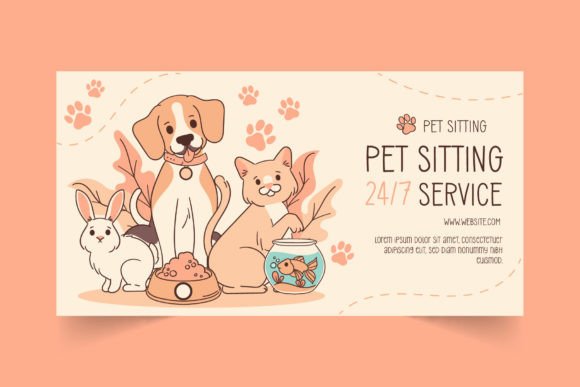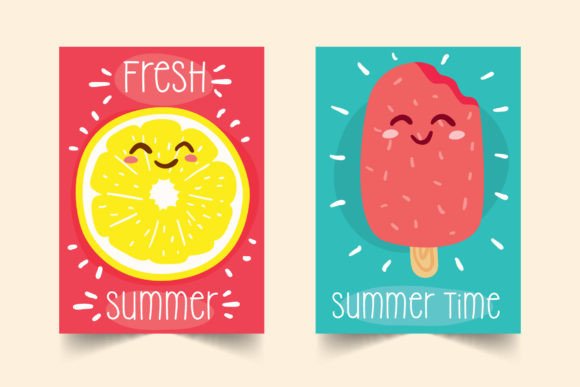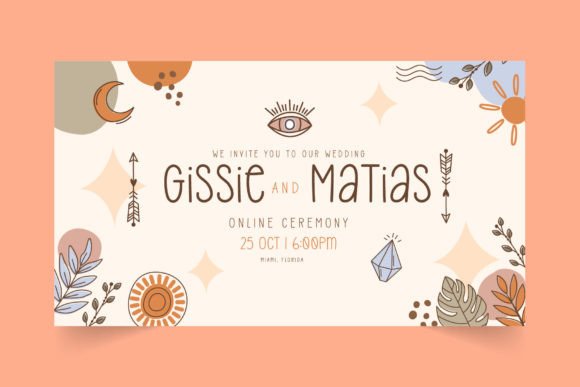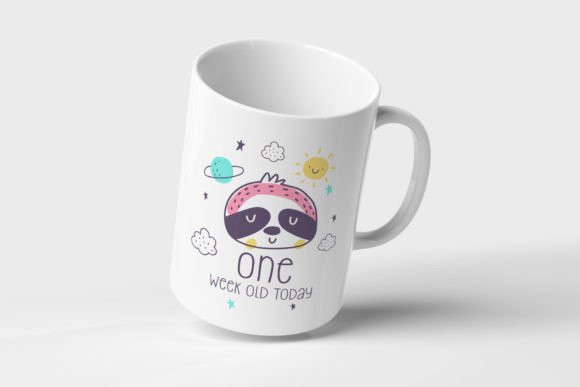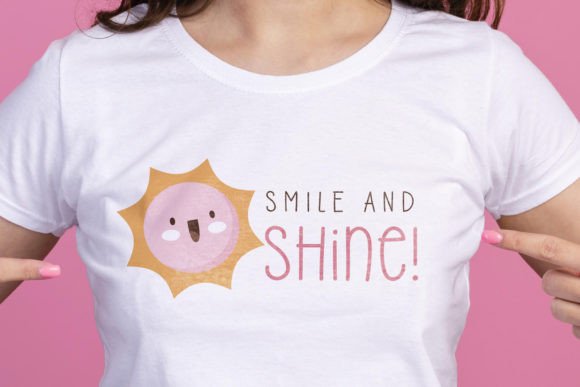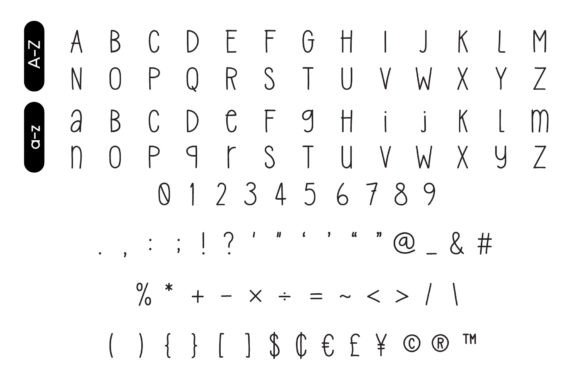
Introduction to Fox Homestay Font
Fox Homestay is a cute handwritten serif font.
It is easy to read and pairs well with a wide range of other fonts Whether youโ€™re designing a logo, a website, or a print project, Fox Homestay will elevate your work with its effortless style and sophistication.
Key Features of Fox Homestay Font
Why Choose Fox Homestay Font?